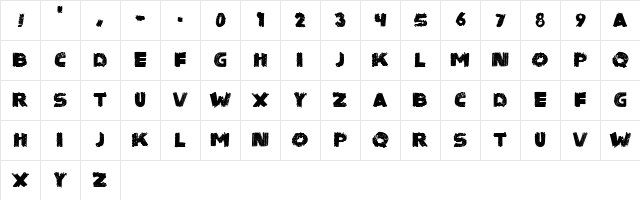
Sinister Black Regular
Foundry: PYRS Fontlab Ltd. / Made with FontLab
Designer: Alex Tomlinson
Design Context for Sinister Black
Sinister Black is a composed and adaptable typeface that performs quietly and consistently across a wide range of design contexts.